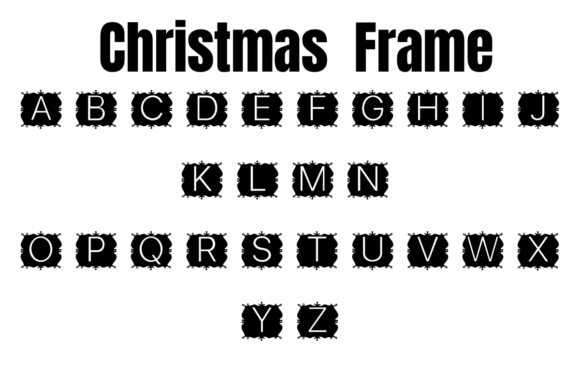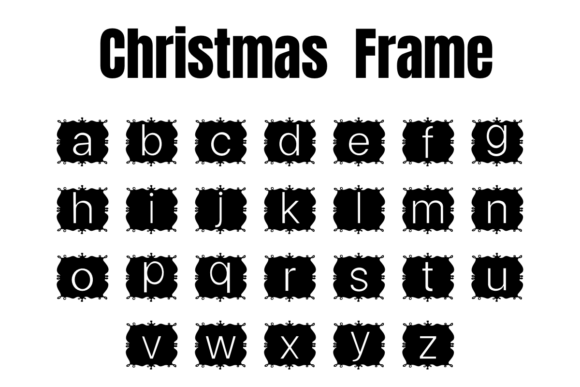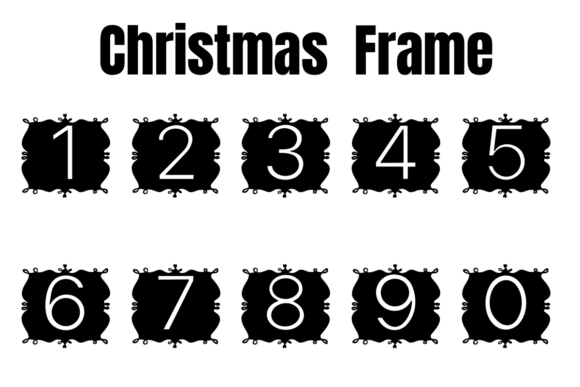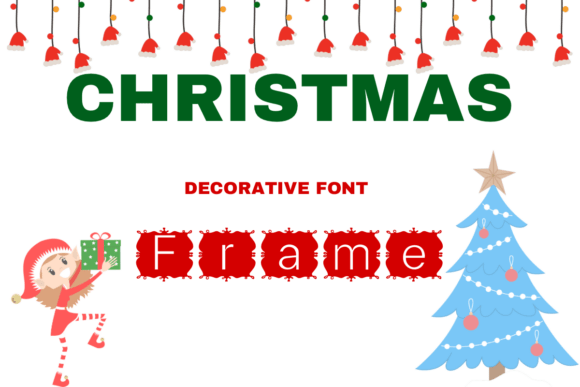
Introduction to Christmas Frame Font
Christmas Frame is a festive decorative font designed to bring instant holiday cheer to your designs.
Each character is beautifully wrapped in a snowflake-like red frame, giving the impression of neatly packaged holiday gifts This typeface is perfect for Christmas cards, gift tags, party invitations, advent calendars, banners, posters, and any seasonal design needing a magical, joyful touch.